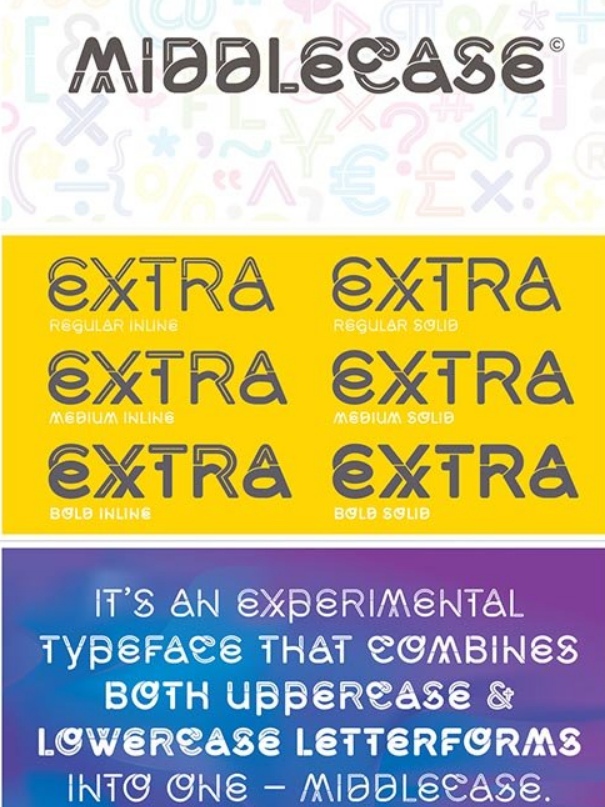
Middlecase Font
Middlecase Font is perfect for balanced branding projects, harmonious editorial layouts, contemporary corporate identities, sophisticated logo design, professional web typography, modern packaging solutions, architectural presentations, and refined advertising campaigns. This equilibrated typeface works exceptionally well in both digital applications and print media where visual balance and typographic harmony are fundamental design requirements.
What makes Middlecase Font so exciting is its innovative approach to letter proportions that creates perfect visual equilibrium through carefully calibrated letterforms that bridge the gap between uppercase authority and lowercase approachability. The font features uniquely balanced characters with optimized heights, harmonious spacing, and proportional consistency that ensures exceptional readability while maintaining distinctive personality. Its balanced design philosophy makes it ideal for brands seeking to communicate stability, professionalism, and thoughtful design while appealing to audiences who appreciate sophisticated typography and visual harmony.
The Middlecase Font family includes comprehensive weight variations from light to bold, along with matching italic styles and proportional alternates. Each style maintains the typeface's balanced character while offering extensive multilingual support, proportioned numerals, harmonious punctuation marks, and special characters designed to enhance professional communications and sophisticated branding efforts across global markets and diverse applications.
This extraordinary typeface represents the perfect evolution of proportional typography optimized for contemporary design challenges and professional applications. Whether you're developing architectural firm identities, creating corporate communication systems, or designing sophisticated brand materials, Middlecase Font Free Download delivers the visual balance and versatility needed for successful modern communications. The font's harmonious aesthetic makes it particularly effective for design studios, professional services, corporate brands, and organizations prioritizing visual sophistication and typographic excellence.
The meticulously engineered proportions and optimized balance in Middlecase Font ensure exceptional visual harmony while maintaining clear communication across all professional applications. Its equilibrated nature allows seamless application from detailed documentation to impactful headlines, making it an invaluable tool for designers creating sophisticated communications that resonate with audiences seeking professionalism, balance, and contemporary typographic refinement.